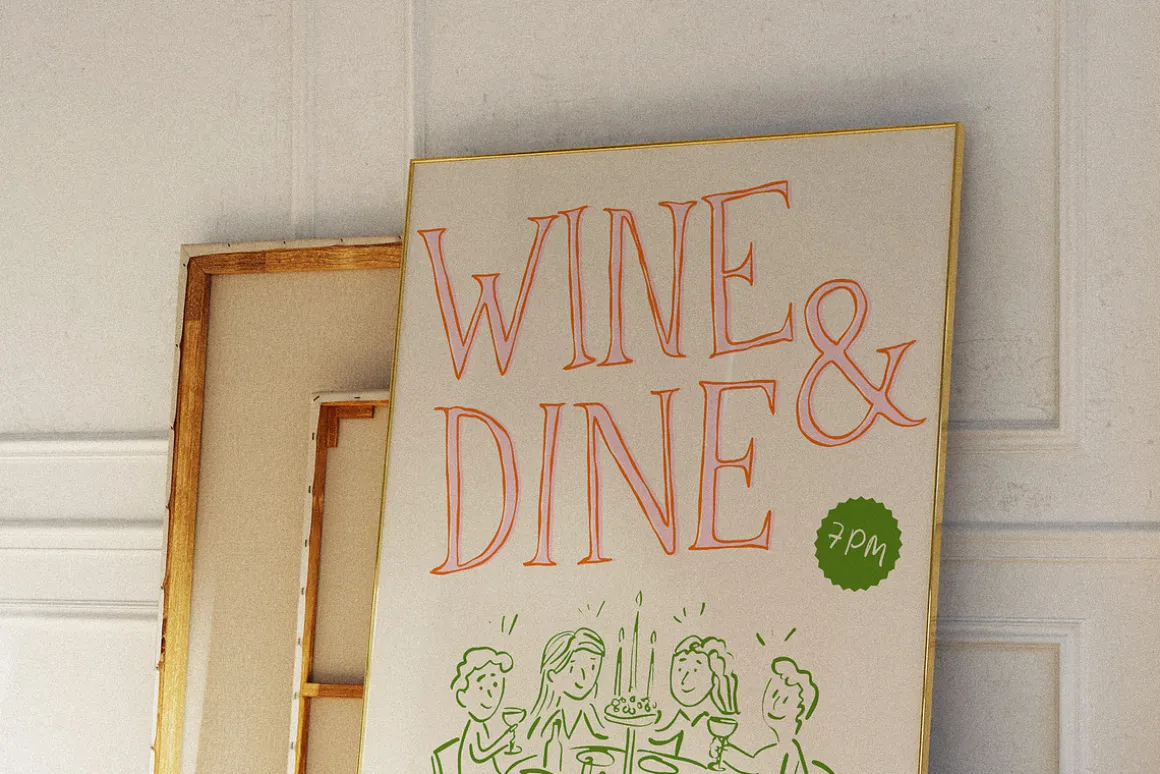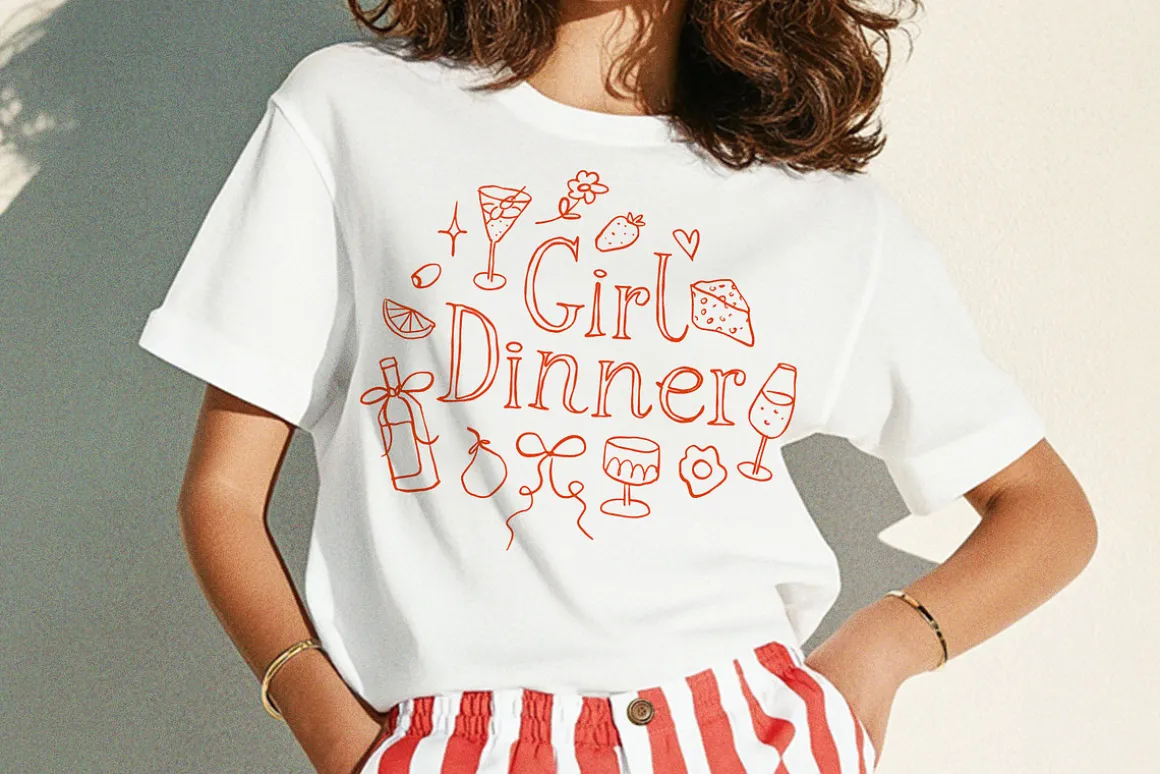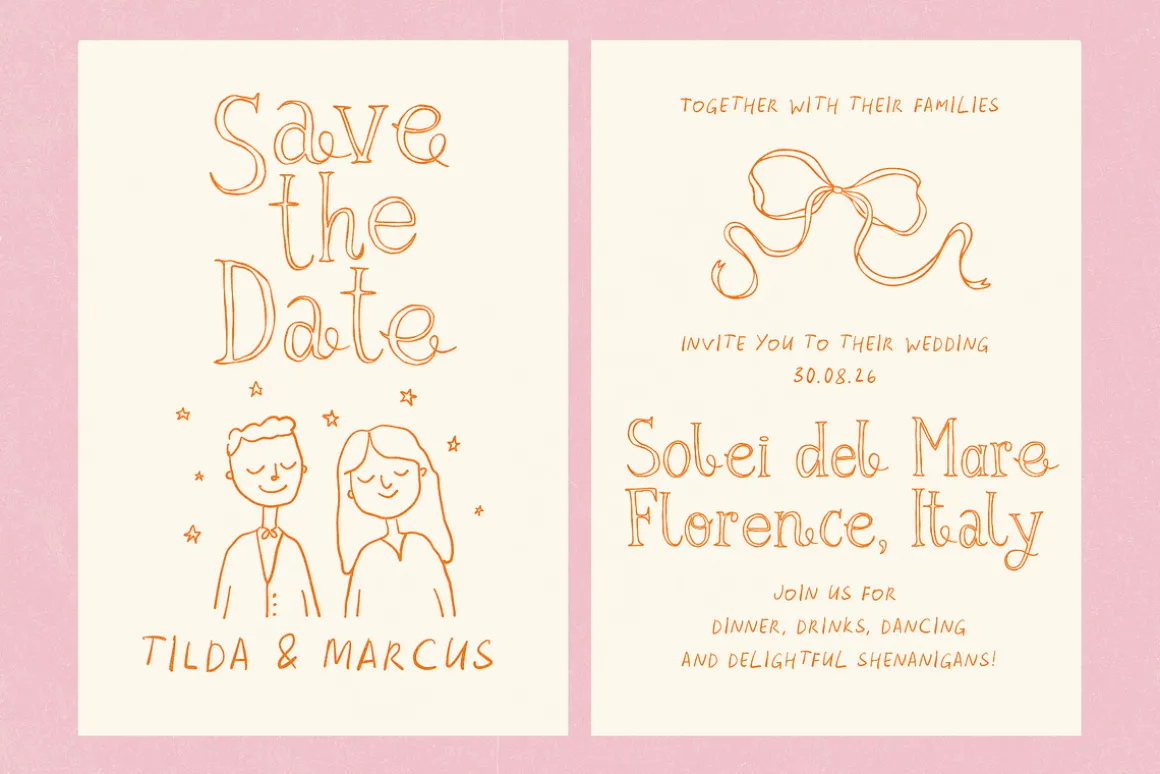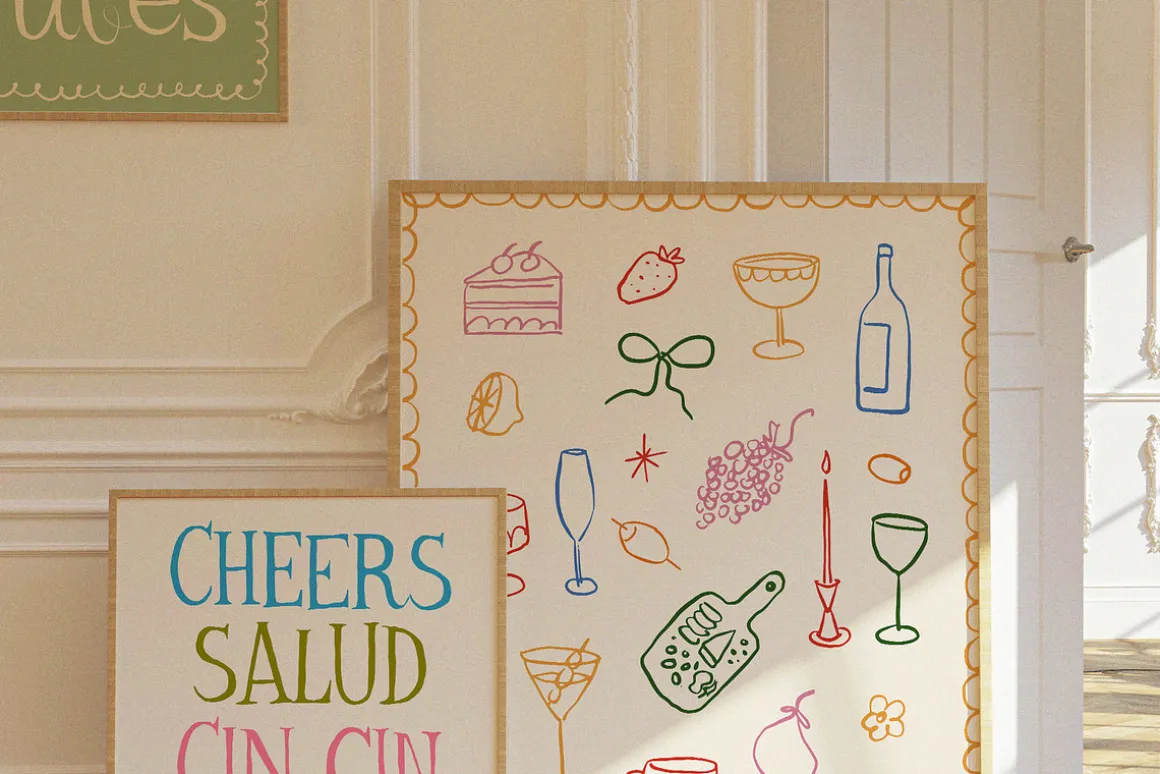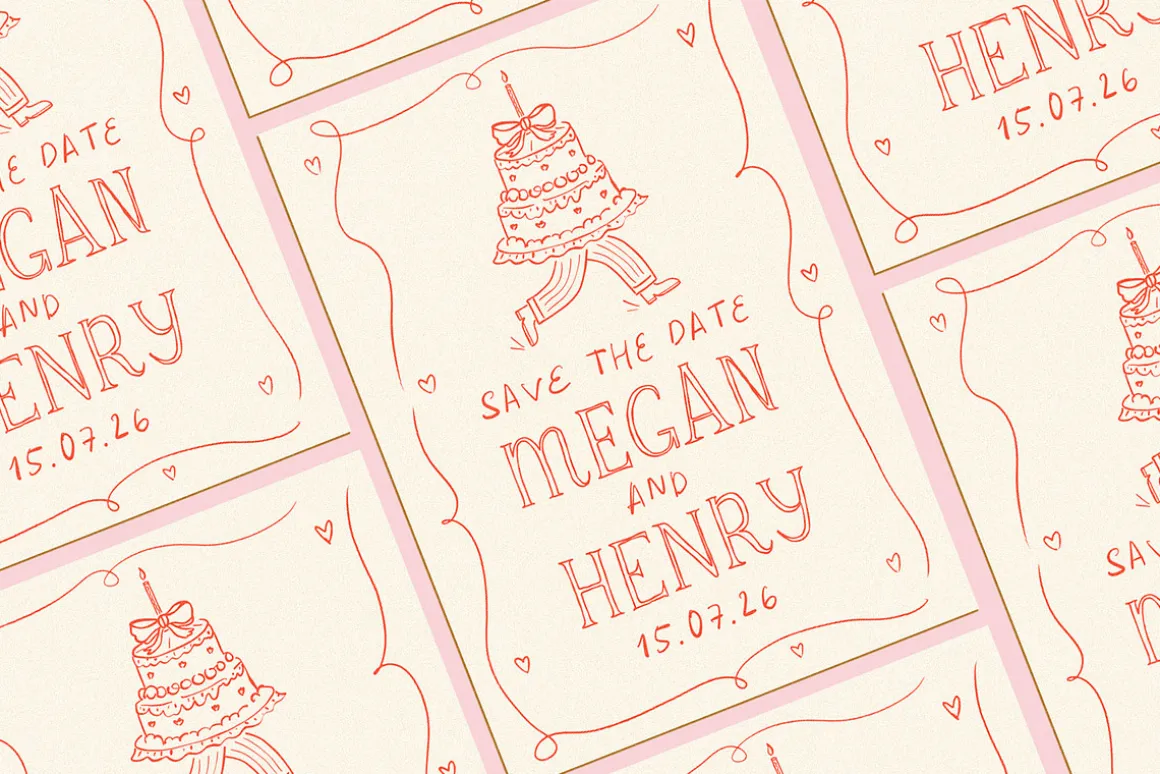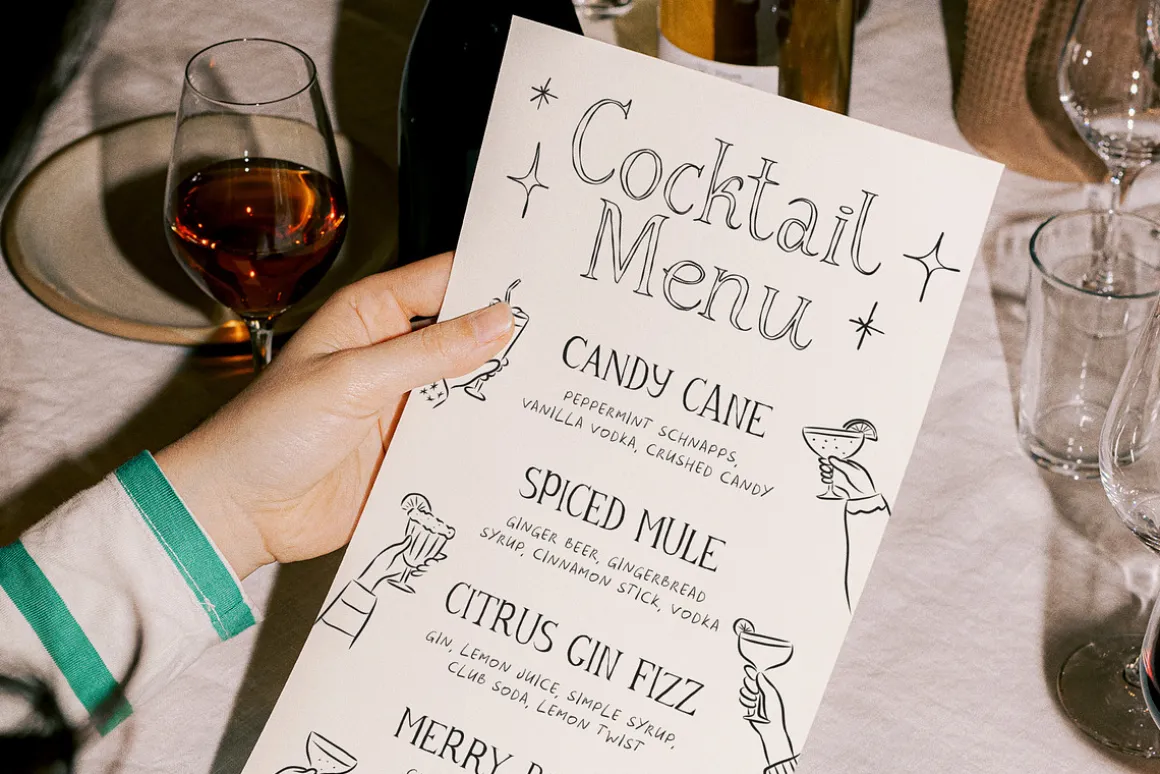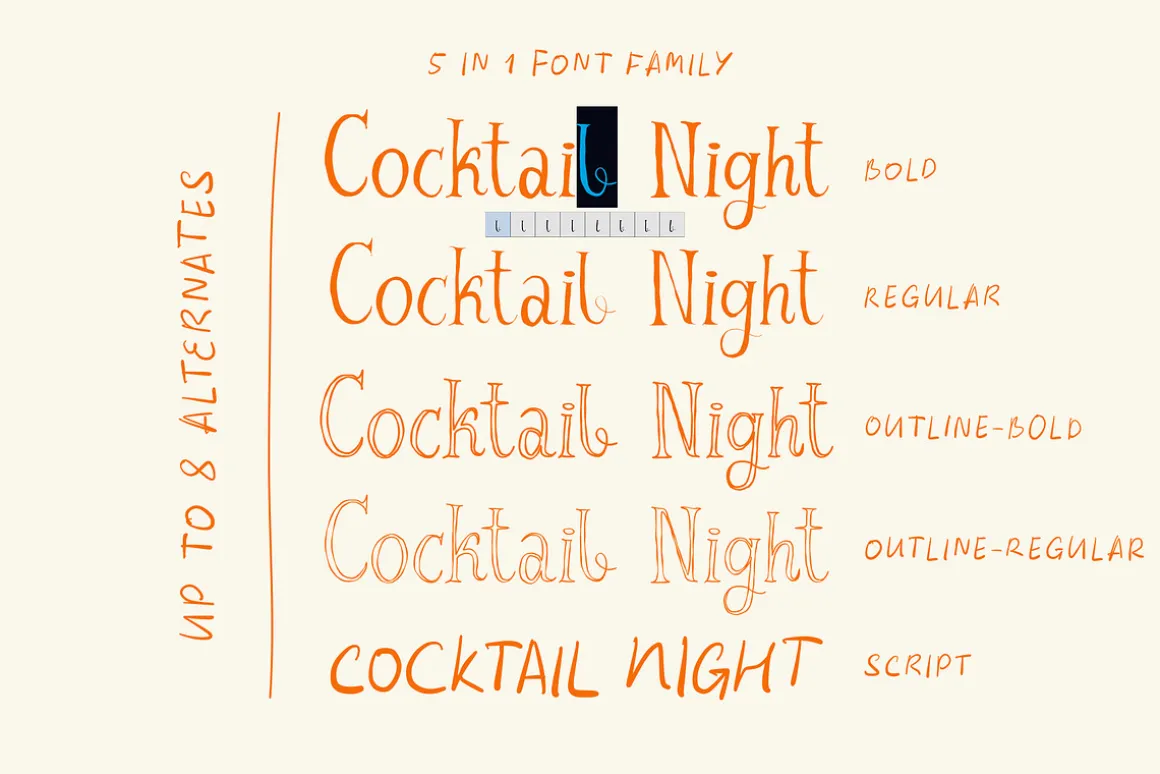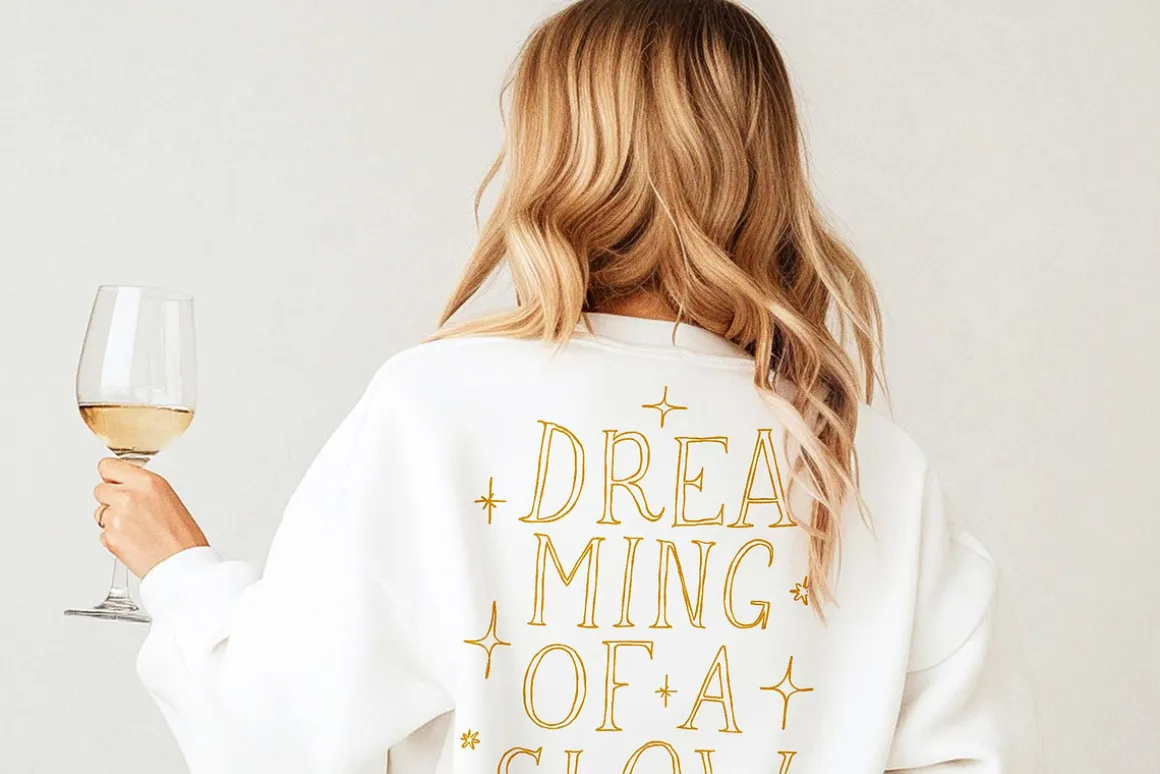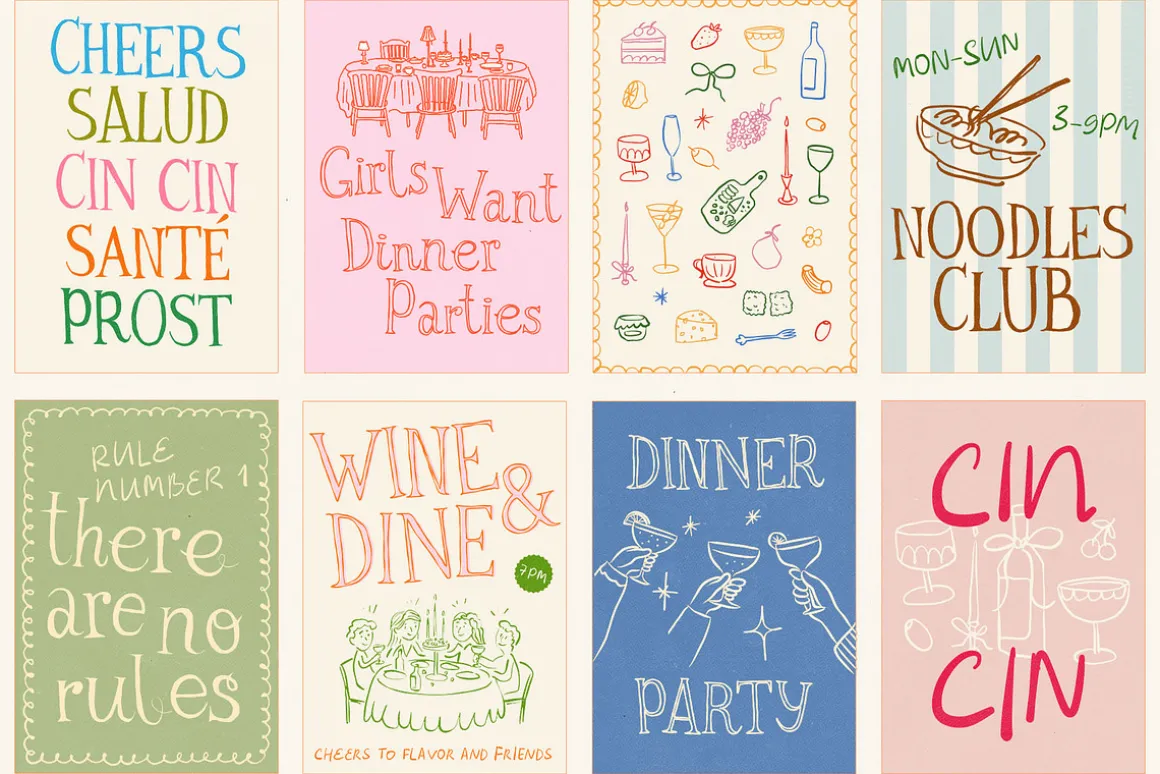
Introducing Cocktail Night, a font family that’s anything but ordinary. :)With five quirky, handwritten fonts that all work together, it brings effortless style to posters, wedding invites, menus, and more. This collection doesn’t stop at fonts and includes over 100 charming, hand-drawn illustrations so you can jump into creating right away. Each letter and doodle has a character, making Cocktail Night the perfect mix of playful and stylish, ready to make your projects as unique as you are.